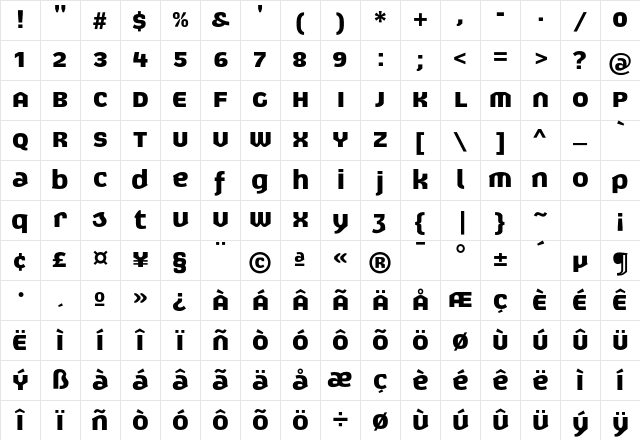
Exert Bold
Exert Family
Exert Bold
Design Context for Exert
Exert is a composed and adaptable typeface that performs quietly and consistently across a wide range of design contexts. Its bold stroke weight gives it real presence on the page.